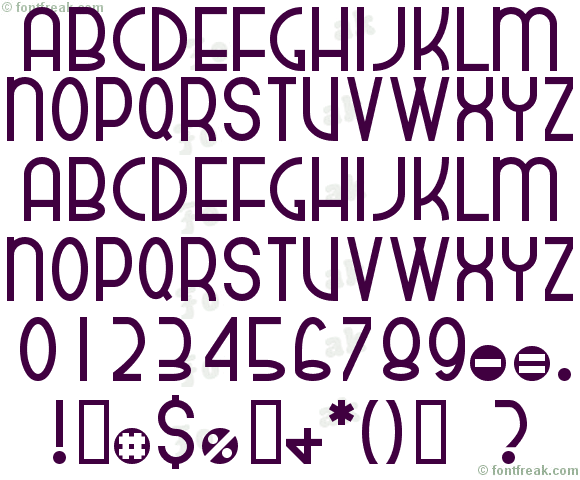
dekthusian
About Dekthusian
Dekthusian is a striking display font designed by Etherbrian, characterized by its unique blend of modern aesthetics and playful elegance. As a display font, it captures attention with its bold presence, making it an excellent choice for eye-catching projects. The visual characteristics of Dekthusian include a medium stroke weight with a balanced contrast, ensuring legibility while retaining a distinctive flair. The font features generous letter spacing that enhances readability and adds to its contemporary feel, making it suitable for a variety of applications.
This versatile font is ideal for several specific use cases, including wedding invitations that require a touch of sophistication, movie posters that need to grab attention, restaurant menus that aim to entice diners, branding materials for small businesses looking to stand out, and social media graphics for content creators aiming to engage their audience. The playful yet polished design of Dekthusian makes it appealing to a broad target audience, including graphic designers, small business owners, and content creators who seek to elevate their visual communications.
What sets the Dekthusian font apart is its ability to blend elegance with modernity, offering a unique aesthetic that stands out in a crowded marketplace. The font's playful design elements and clean lines make it both memorable and versatile, allowing it to adapt seamlessly across different mediums. For those seeking a font that combines style and functionality, Dekthusian is an excellent choice. Best of all, it is available as a freeware, making it accessible for a wide range of projects. Experience the charm of this typeface with a Dekthusian font free download and elevate your design work today.